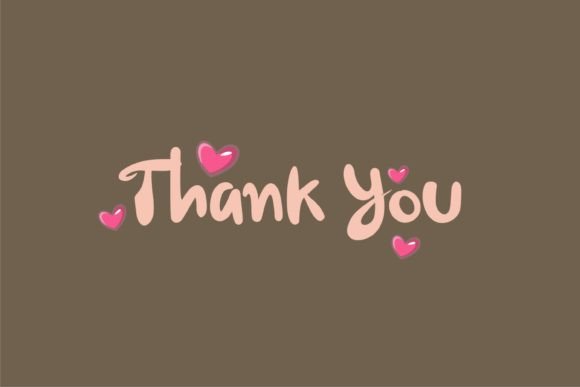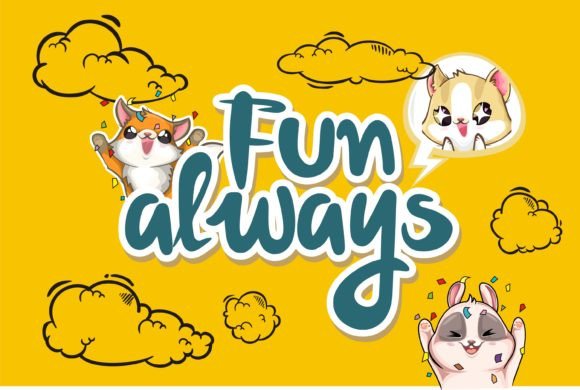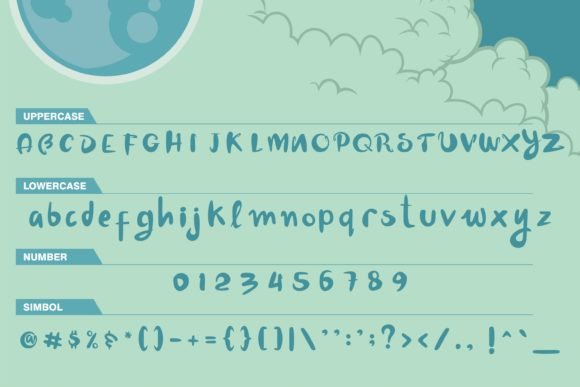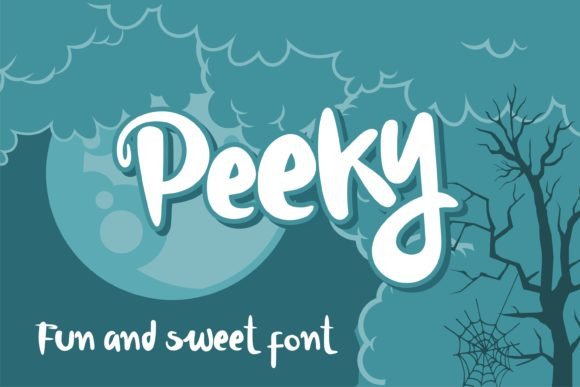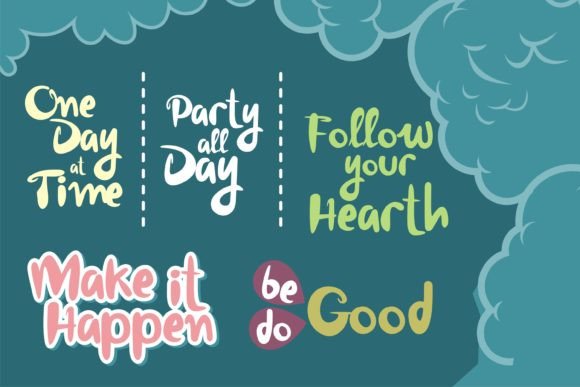
Introduction to Peeky Font
Have you ever stared at a blank canvas, struggling to find the perfect spark to ignite your creative project? The blank page can be intimidating, but sometimes all it takes is a simple yet bold choice to get the ball rolling. For many designers, the right font can be that elusive spark that sets their imagination ablaze.
Enter the Peeky Font, a playful and fun display font that’s sure to elevate any creation. With its high-quality design and versatility, this font is an invaluable resource for designers looking to add a touch of whimsy to their work. Whether you’re working on a personal project or a commercial design, Peeky Font has the potential to take your design to the next level.
Key Features of Peeky Font
- High-quality design with a unique, creative style perfect for any project.
- Perfect for creative projects, including logos, graphics, and typography, adding a touch of elegance and sophistication.
Honest Review: Peeky Font
As a designer, I’m always on the lookout for high-quality fonts that can elevate my creative projects. Recently, I stumbled upon the Peeky Font, and I must say, it’s been a game-changer for me. This font is a fantastic design resource that offers a unique and modern aesthetic.
- ✨ Versatile and can be used for various design applications
However, I do have a few limitations to mention. ⚠️ The font’s font family is quite limited, and I sometimes find myself wishing for more options. Additionally, the font may not be suitable for body text due to its unique style.
Overall, I’m thoroughly impressed with the Peeky Font. It’s a fantastic addition to any designer’s toolkit, and I highly recommend it for any creative project. Just be aware of its limitations, and you’ll be well on your way to creating stunning designs with this high-quality font.
Tips for Getting the Most Out of Peeky Font
Use the Peeky Font on a transparent background to create a seamless design. Experiment with different font sizes and colors to add depth and visual interest to your project. Combine the Peeky Font with other design elements, such as images and shapes, to create a unique and creative project.
The Peeky Font is ideal for use in creative projects, such as blog posts, social media graphics, and marketing materials. Its high-quality design and transparent background make it a versatile font that can be used in a variety of contexts.
Alternatives to Peeky Font
Montserrat is a high-quality sans-serif font that is perfect for creative projects requiring a modern and sleek design. It’s available for free download and features a transparent background, making it ideal for designing logos and graphics. Montserrat is a great alternative to Peeky Font for designers who want a clean and minimalist look.
Great Vibes is a beautiful script font that is ideal for designing creative projects with a touch of elegance. It’s available for free download and features a transparent background, making it perfect for designing invitations, quotes, and other graphics. Great Vibes is a great alternative to Peeky Font for designers who want a more artistic and whimsical look.